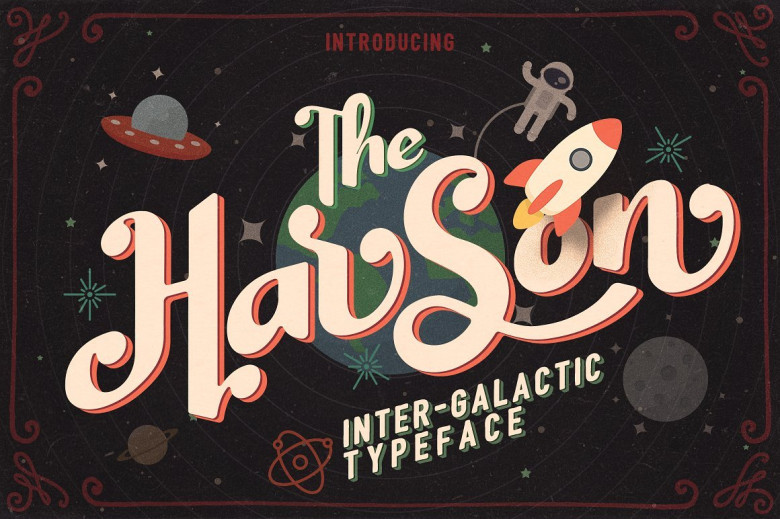
Harson Typeface
Starting a new free font package today is an Inter-Galactic Typeface. Introducing Harson! It is designed and shared by weirdStore. This font was inspired by vintage magazine and old movie titles. Harson comes with uppercase, lowercase, numerals, punctuations, currency symbols and many variations on each characters include opentype alternates, and common ligatures. Also supported with Contextual Alternate so the alternate characters will generated automatically on every final character when typing a word. Harson perfect to be use for Logotype, Letterhead, Poster, Apparel Design, Label and etc.